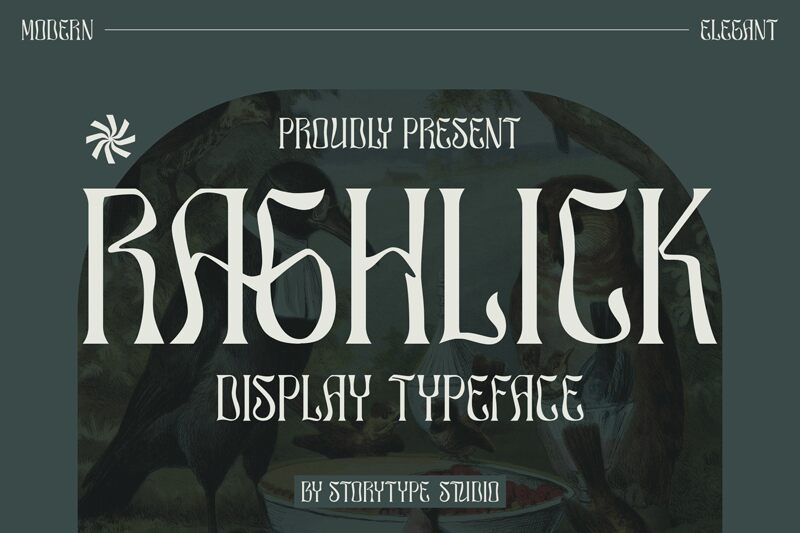
RAGHLICK
Raghlick, designed by Storytype Studio, is a captivating vintage font that embodies the essence of nostalgia. With its semi-light weight and condensed width, this font exudes an air of elegance and sophistication. Perfectly suited for branding projects, Raghlick adds a touch of timeless charm to logos, packaging designs, and invitations. Its refined appeal makes it ideal for crafting labels for premium products such as boutique wines or artisanal chocolates. Whether used in print or digital media, Raghlick effortlessly transports your audience to a bygone era while maintaining a modern edge.